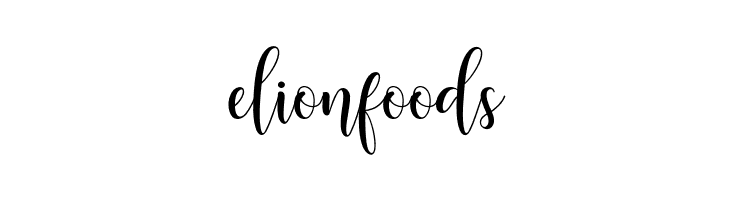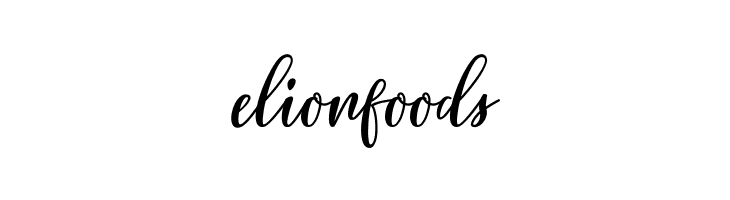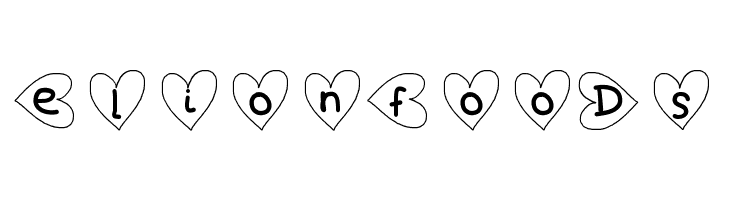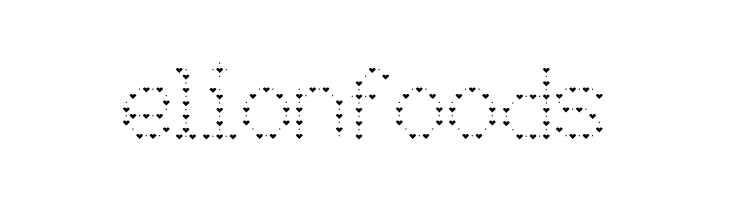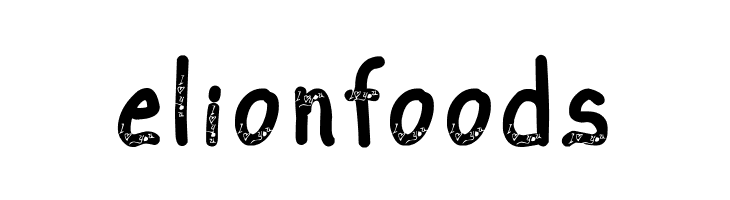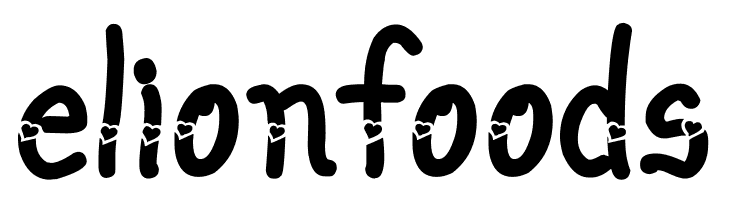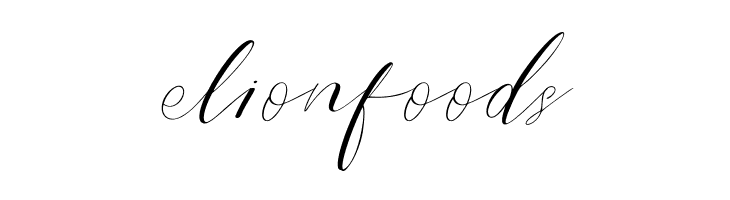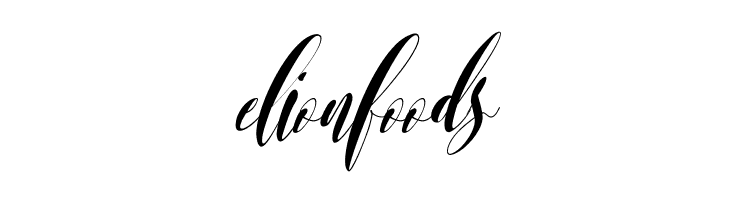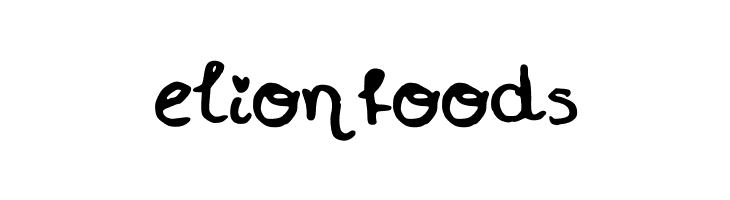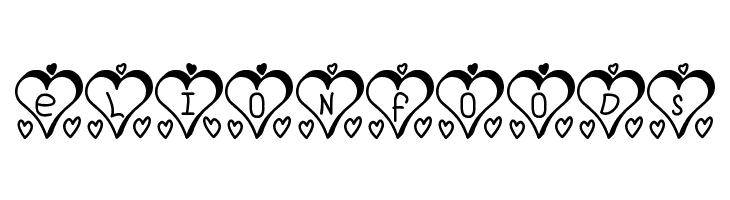
( Amar Lettering - creativemarket.com/Amarlettering )
An elegant script font with flowing lines and sophisticated style.
( Fadhil Aqsa - creativemarket.com/Meutuwah )
An elegant, cursive font with flowing, handwritten style.
( Gaelleing )
A playful, heart-themed font with bold, rounded characters enclosed in heart shapes.
( Jecko Development - www.jeckodevelopment.com/ )
A decorative font made of heart shapes, perfect for romantic and playful designs.
( José Melendez )
A playful, heart-embellished handwritten font with a whimsical and romantic style.
( José Melendez )
A playful, heart-themed decorative font with bold, rounded characters.
( Just Font You - Ian Irwan Wismoyo - justfontyou.com/ )
An elegant script font with flowing, cursive letterforms and high contrast strokes.
( Muhammad Akbar - creativemarket.com/sinfa )
An elegant script font with flowing, cursive style and intricate flourishes.
( PlumbobsandHolosprites - Flore Creations - plumbobsandholosprites.tumblr.com )
A playful, heart-themed font with bold, rounded characters and a hand-drawn style.
( Southype - Rodrigo Gonzalez - www.southype.com )
A whimsical font with characters enclosed in heart shapes, ideal for romantic themes.